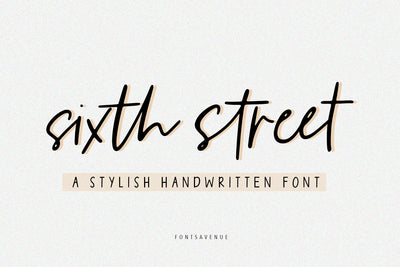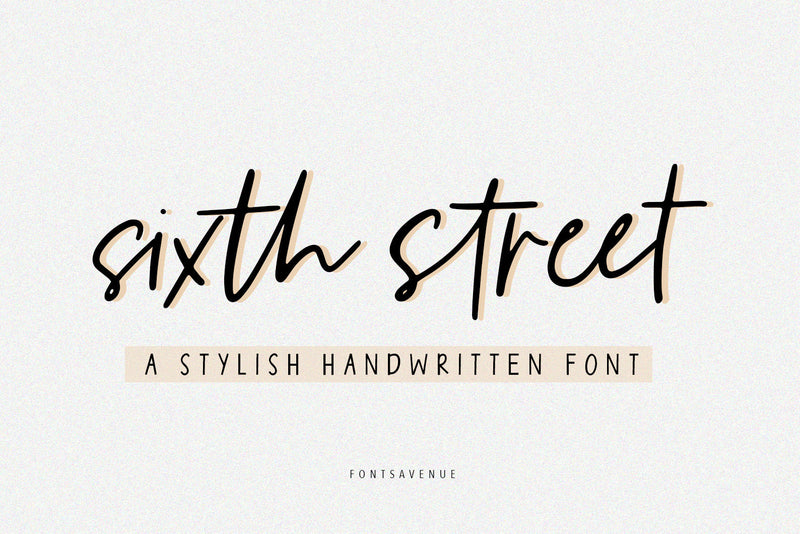
Sixth Street | Handwritten Script Font
Sixth Street is a clean handwritten script font, perfect for invitations, logo design, branding, stickers, quotes and much more!
Features
- Uppercase and lowercase letters